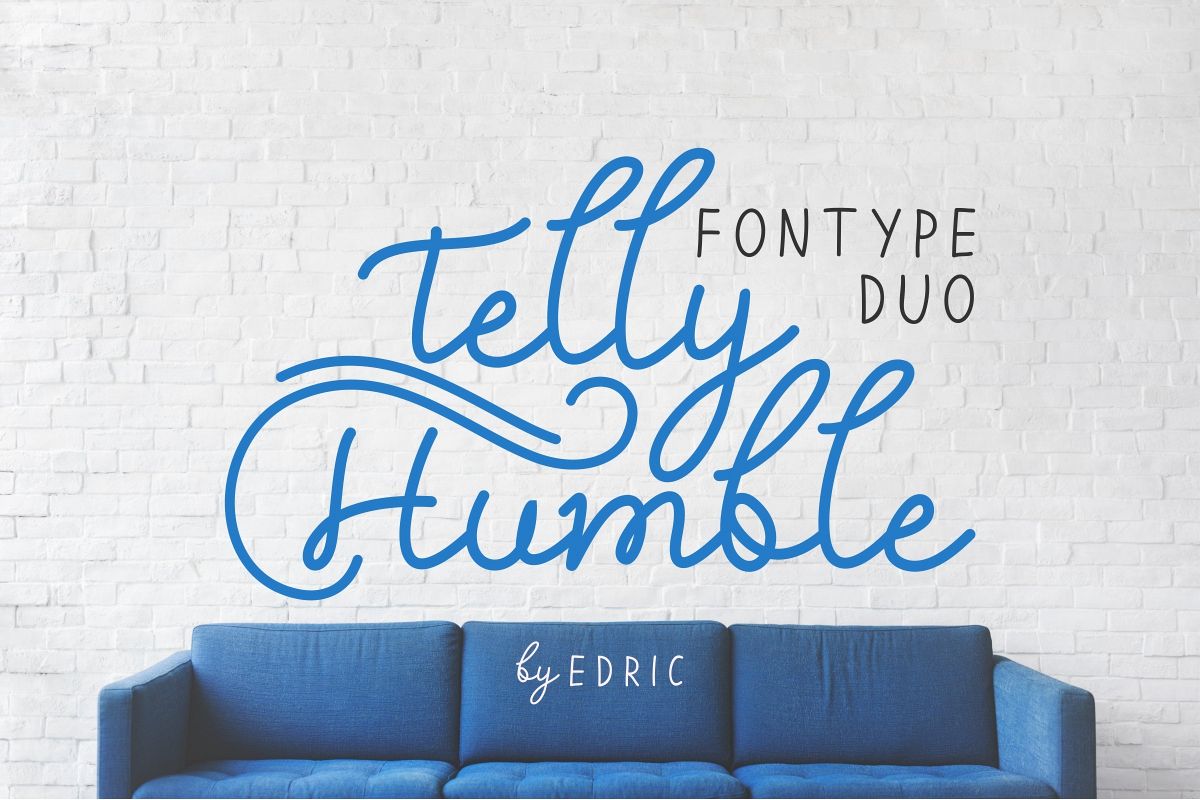
Telly Humble
Please meet our newest font family : Telly Humble !
Telly Humble is a font DUO with monoline handwriting and Sans Display look styles. It has natural and casual font glyphs.  It also support multilanguage accentsWhat’s include on the zip :